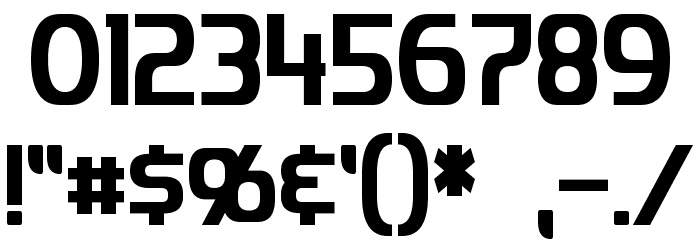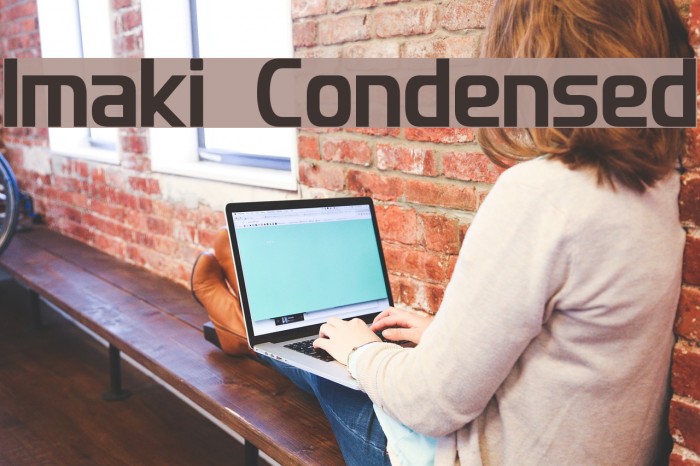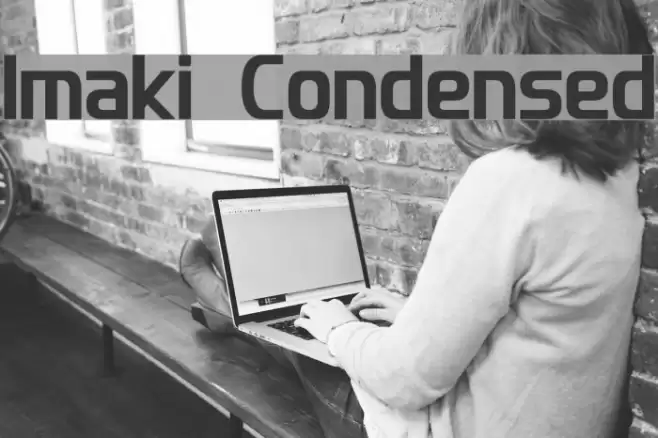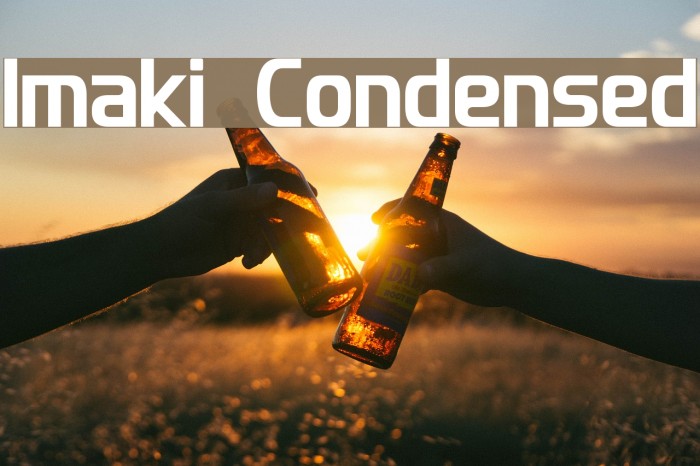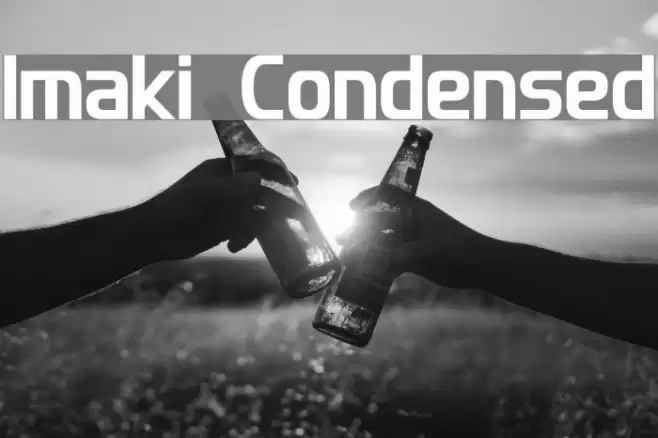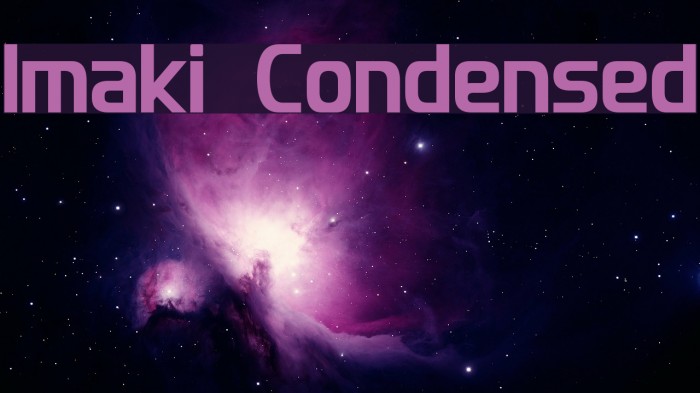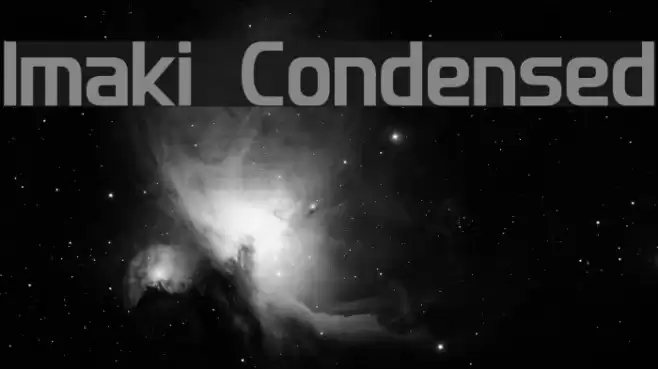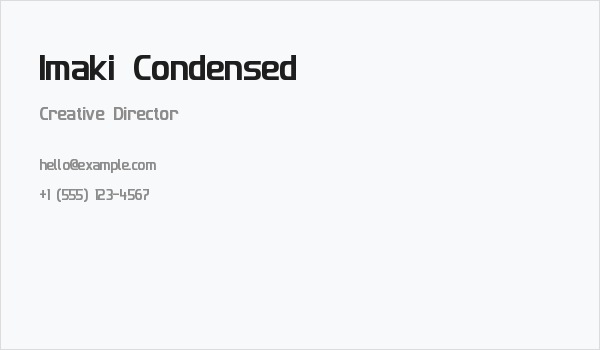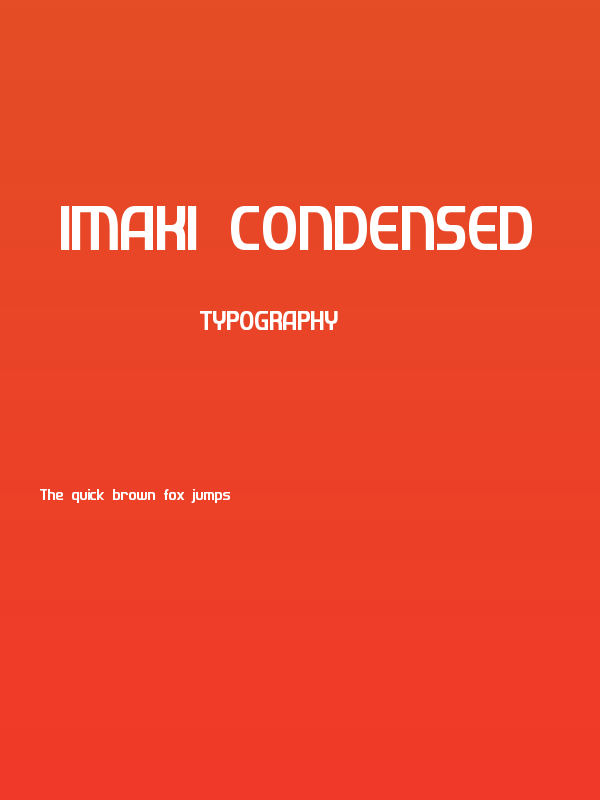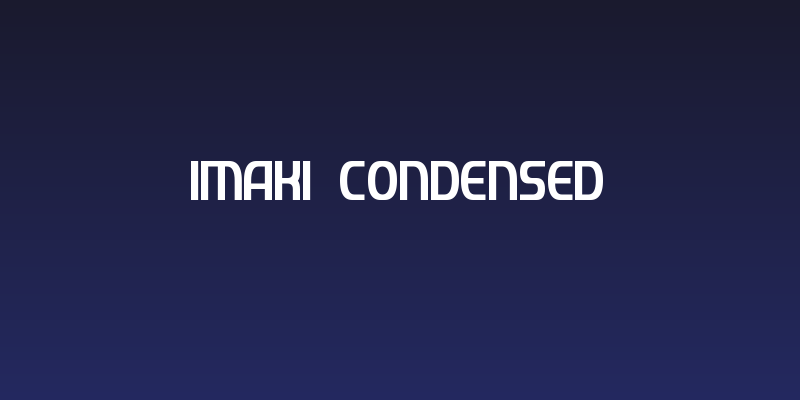
Imaki Condensed Font
Imaki Condensed Description
This font features a bold and modern aesthetic with a condensed structure, making it highly suitable for space-saving designs. The characters exhibit a geometric style with smooth curves and sharp edges, providing a clean and contemporary look. The uppercase and lowercase letters maintain a consistent height, enhancing readability. The numerals are distinct and align well with the overall design, while the special characters are crafted to match the font's sleek appearance. This font is versatile, offering a professional yet approachable feel, ideal for various digital and print applications.
| Proposed Projects | Ideal for branding, headlines, posters, and digital interfaces where space is limited. |